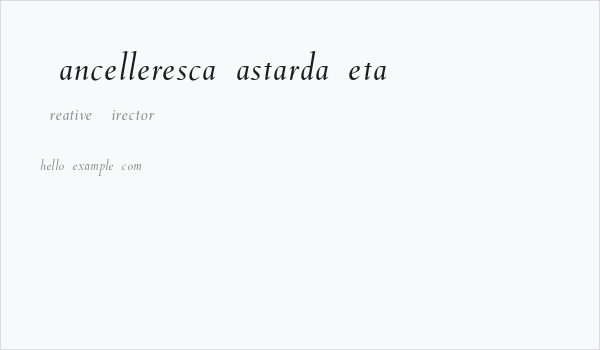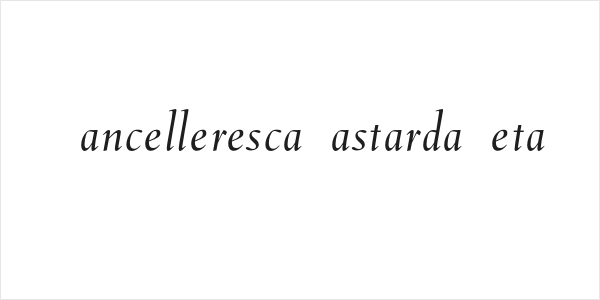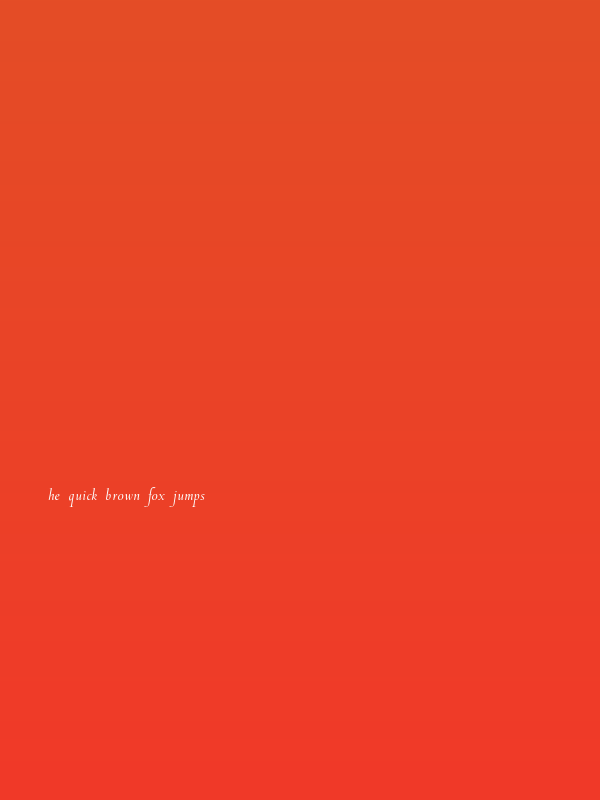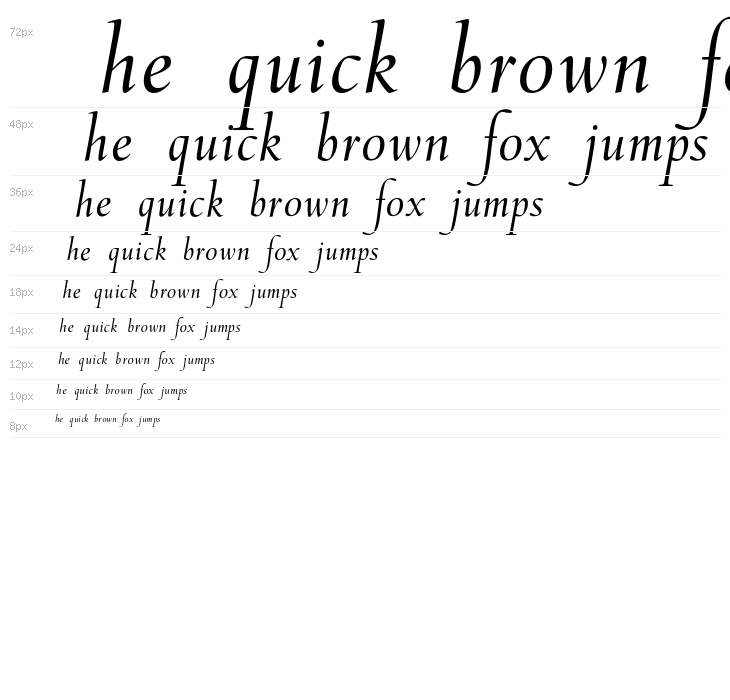
CancellerescaBastardaBeta Font
CancellerescaBastardaBeta Description
This font exudes a classic elegance with its flowing, cursive style. The characters are designed with a slight slant, giving them a dynamic and sophisticated appearance. The strokes are smooth and fluid, with a moderate contrast between thick and thin lines, enhancing its readability while maintaining an artistic flair. The lowercase letters are particularly distinctive, with elongated ascenders and descenders that add to the font's graceful aesthetic. This script style is reminiscent of traditional calligraphy, making it suitable for formal and decorative applications.
Overall StyleClassic
Use CaseLogos, Invitations, Decorative text
Proposed ProjectsIdeal for wedding invitations, formal event programs, elegant branding, and decorative certificates.